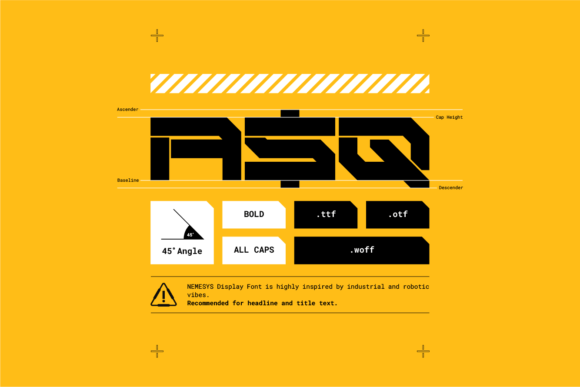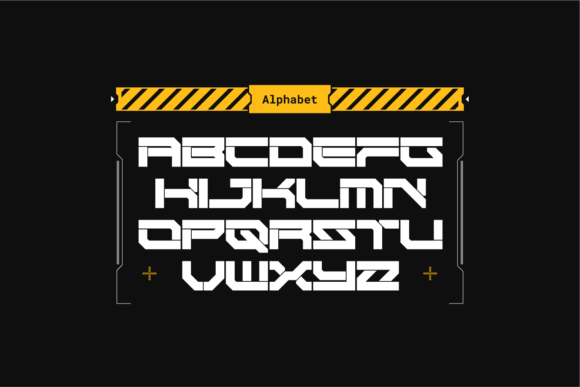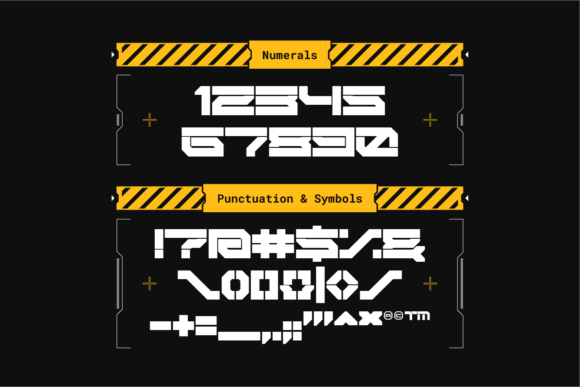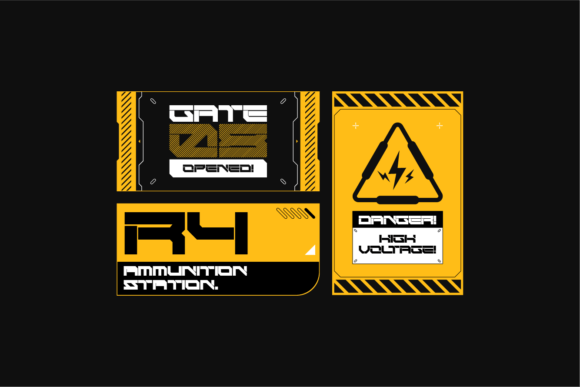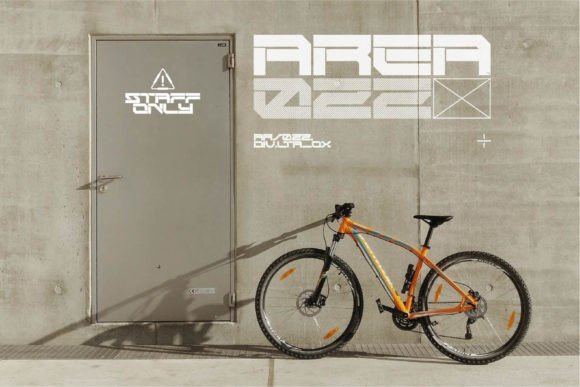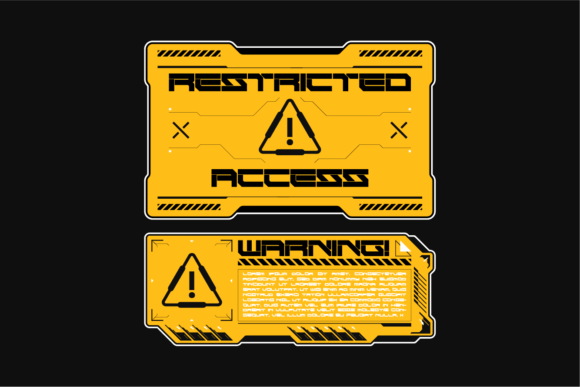
Introduction to Nemesys Font
As a designer, have you ever been stuck in a creative rut, struggling to find the perfect font to bring your innovative idea to life? I know I have. That was until I stumbled upon the Nemesys Font – a game-changing display font that’s been a total game-changer for my projects. Inspired by the futuristic world of industrial and robotic design, this high-quality font is the ultimate design resource for anyone looking to add a cutting-edge touch to their work.
What I love most about the Nemesys Font is its versatility – it’s perfect for creative projects that require a bold, eye-catching font, from futuristic sci-fi designs to sleek and modern tech illustrations. And the best part? It’s available for a free download, complete with a transparent background, making it incredibly easy to use and customize in your favorite design software.
Key Features of Nemesys Font
- High-quality design resource ideal for creative projects, offering a unique and modern aesthetic.
- Part of a comprehensive font family, offering a wide range of styles and weights to suit your design needs.
- Perfect for use in digital design, including web design, graphic design, and UI/UX design, as well as print materials like business cards and brochures.
Honest Review: Nemesys Font
As a designer, I’m always on the lookout for high-quality design resources to elevate my creative projects. The Nemesys Font is one such resource that caught my attention.
- ✨ Unique and modern design aesthetic that’s perfect for contemporary creative projects.
- ✨ High-resolution glyphs that ensure crisp and clear typography, even at large sizes.
- ✨ Transparent background, making it easy to customize and integrate into various design contexts.
- ⚠️ Limited character set, which might be a concern for designers working on projects that require a broader range of characters.
- ⚠️ No comprehensive documentation or tutorial, which can make it difficult for beginners to get started.
Overall, I’d say the Nemesys Font is a solid addition to any designer’s toolkit, especially for those working on creative projects that require a modern and sleek aesthetic. While it may have some limitations, its unique design and high-quality glyphs make it a worthwhile download – and the best part is, it’s free!
Tips for Getting the Most Out of Nemesys Font
Use the Nemesys Font in combination with other design elements to create a cohesive and visually appealing design. Experiment with different font sizes and colors to add depth and interest to your project.
The Nemesys Font is ideal for use in creative projects such as logos, business cards, and brochures. It’s also a great choice for use in digital design projects such as website headers and social media graphics.